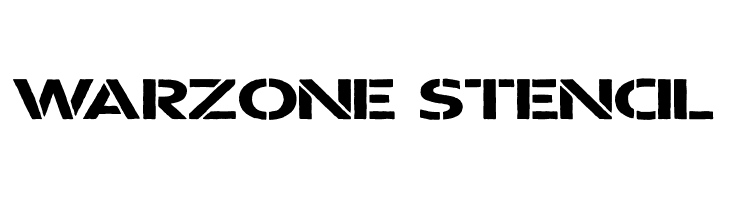
A bold, stencil-style font with a military-inspired design.
A bold, abstract font with futuristic and geometric design elements.
A bold, playful font with thick, rounded strokes and a whimsical design.
A bold, jagged font with a rugged, carved appearance.
A sleek, extra-light italic sans-serif font with a modern and dynamic style.
A dynamic and fluid script font with connected letterforms and a handwritten style.
A distressed serif font with a vintage, grunge aesthetic.
A bold, playful font with a cartoonish, energetic style.
A bold, angular font with a gothic influence and high contrast.
A decorative font with a melting, dripping effect ideal for dramatic themes.